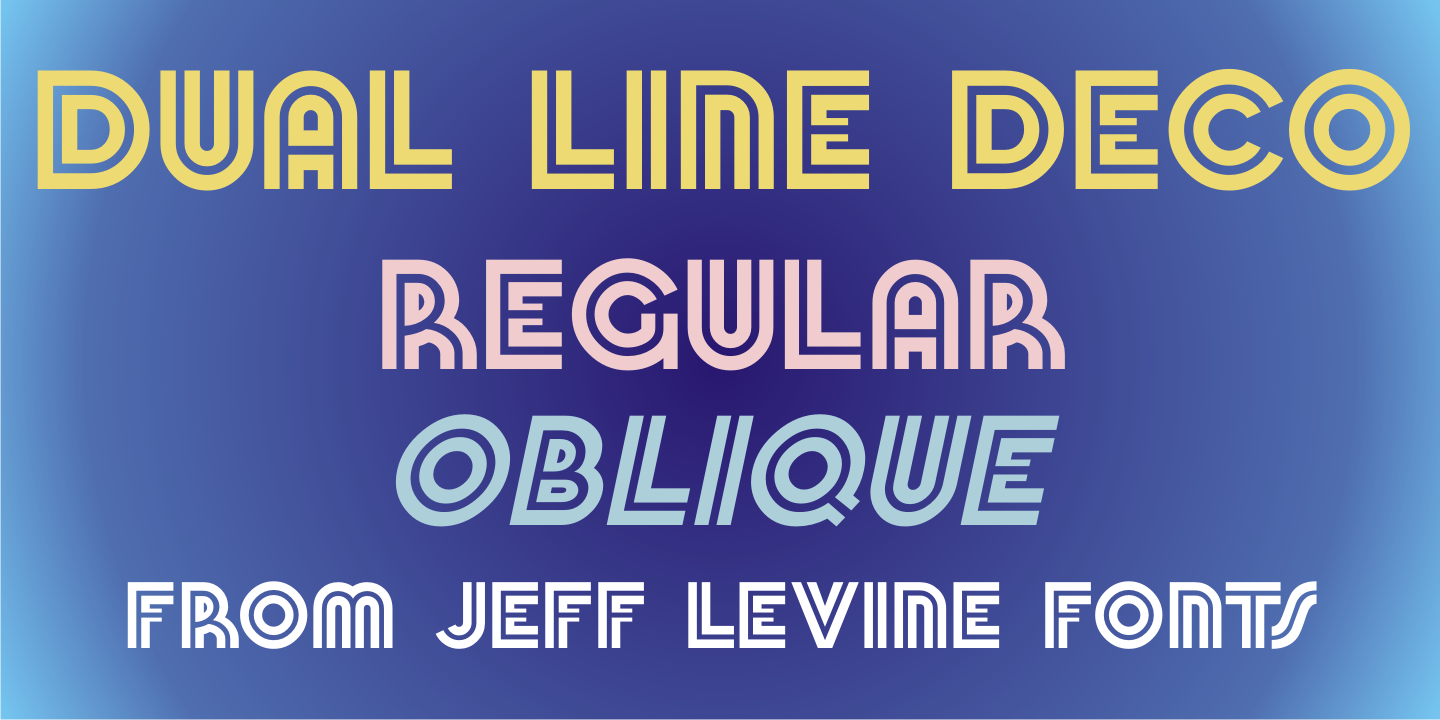
Unleash your creativity with the Dual Line Deco JNL Font Free Download, a striking typeface that embodies bold, geometric Art Deco flair. This font is available for free download for testing purposes, but you must purchase it for commercial use. Its distinctive design makes it a standout choice for designers seeking a retro-modern aesthetic.
The Dual Line Deco JNL Font excels in applications like vintage-inspired posters, logos, event invitations, signage, and branding materials, where its unique dual-line structure creates visual impact. Its bold geometry ensures it grabs attention in both digital and print formats.
What makes the Dual Line Deco JNL Font Free Download exciting is its fusion of 1920s Art Deco charm with contemporary versatility, offering a nostalgic yet fresh vibe. Its clean, structured lines add a sense of sophistication and boldness to any project.
The Dual Line Deco JNL Font family includes variations such as Regular, Bold, and Oblique, providing flexibility for diverse design needs. These styles allow for dynamic typography in everything from headlines to decorative elements.